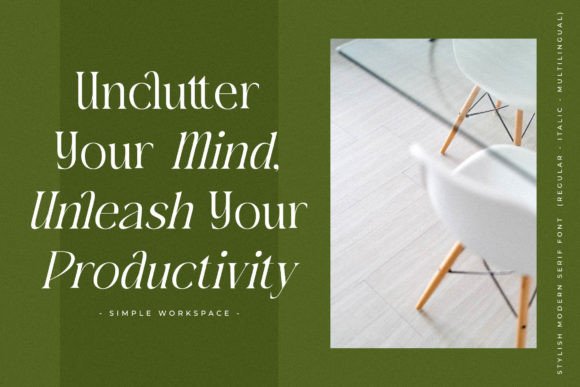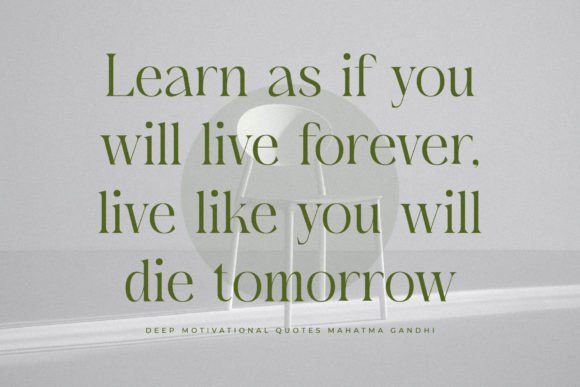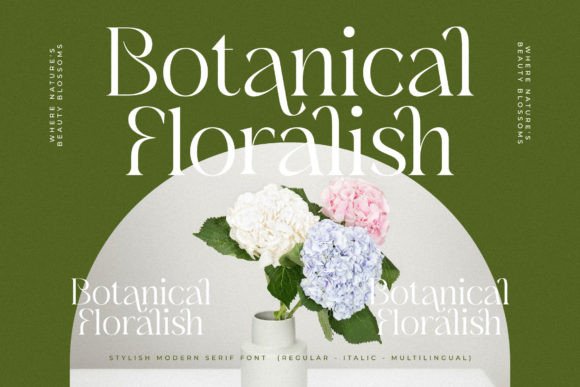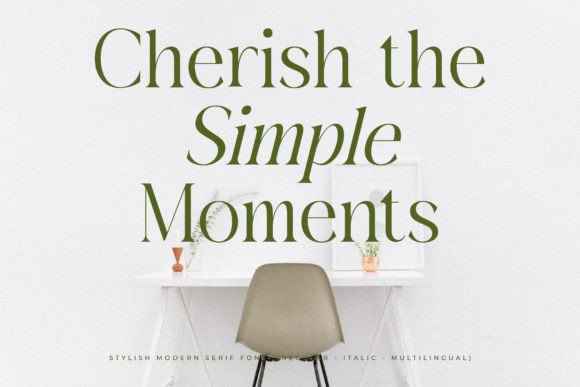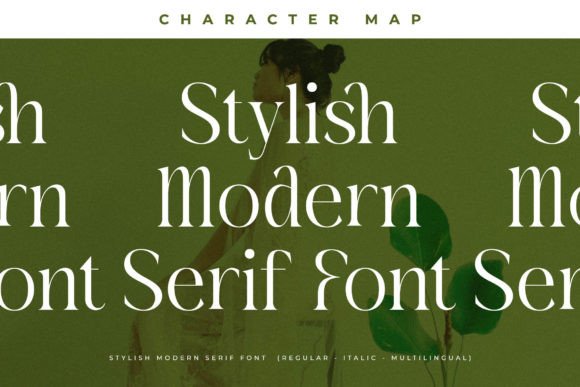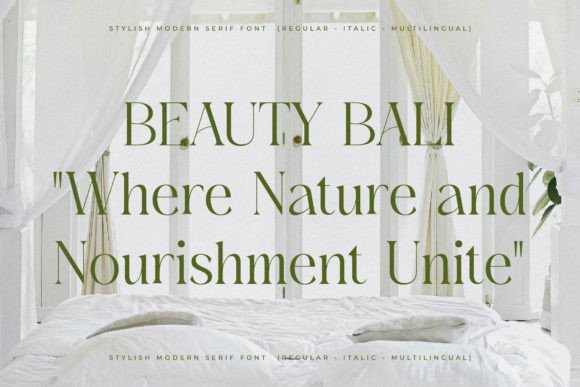
Introducing Blanvad Font: The Epitome of Elegance and Sophistication
In the realm of typography, a font can make or break the visual identity of a brand, product, or creative project. For those seeking a typeface that exudes luxury, sophistication, and timeless elegance, look no further than Blanvad Font. This modern and classic serif typeface has carved out its own unique niche, making it the perfect choice for a wide range of applications, from elegant logos and book or movie titles to fashion branding, magazines, and beyond.
The Unique Style of Blanvad Font
Blanvad Font boasts a distinctive style that sets it apart from other serif typefaces. Its modern and classic blend gives it a versatile edge, allowing it to adapt seamlessly to various design contexts. The font’s serifs are carefully crafted to add a touch of refinement and poise, making it an excellent choice for designs that demand a high level of sophistication.
Perfect for Luxurious and Elegant Designs
When it comes to creating designs that scream luxury and elegance, Blanvad Font is the perfect choice. Its refined features and classic lines make it an ideal fit for:
- Elegant Logos: Create a lasting impression with a logo that exudes sophistication and refinement. Blanvad Font is perfect for luxury brands, high-end products, and services that demand a premium visual identity.
- Book or Movie Title Design: Add a touch of glamour to your book or movie titles with Blanvad Font. Its classic and modern blend makes it perfect for creating eye-catching title designs that capture the essence of your story.
- Fashion Brand: Elevate your fashion brand with a typeface that embodies style and sophistication. Blanvad Font is perfect for creating stunning brand identities, advertisements, and marketing materials.
- Magazine: Give your magazine a touch of elegance with Blanvad Font. Its refined features make it perfect for creating visually stunning headlines, titles, and body text.
Beyond Elegant Designs: Exploring the Versatility of Blanvad Font
While Blanvad Font excels in elegant and luxurious designs, its versatility extends far beyond. This typeface can also be used for:
- Clothes: Create stunning clothing brand identities, advertisements, and marketing materials with Blanvad Font.
- Lettering: Add a touch of sophistication to your lettering projects with Blanvad Font.
- Quotes: Create visually stunning quote designs that inspire and motivate with Blanvad Font.
Why Choose Blanvad Font?
With so many typefaces available, why choose Blanvad Font? Here are just a few reasons:
- Unique Style: Blanvad Font boasts a distinctive style that sets it apart from other serif typefaces.
- Versatility: This typeface can be used for a wide range of applications, from elegant logos to clothing brand identities.
- Elegance: Blanvad Font exudes luxury and sophistication, making it perfect for designs that demand a high level of refinement.
In conclusion, Blanvad Font is a modern and classic serif typeface that offers a unique blend of elegance and sophistication. Its versatility, refined features, and distinctive style make it the perfect choice for a wide range of design applications. Whether you’re a designer, craftsperson, or simply someone looking for a typeface that embodies luxury and refinement, Blanvad Font is an excellent choice.